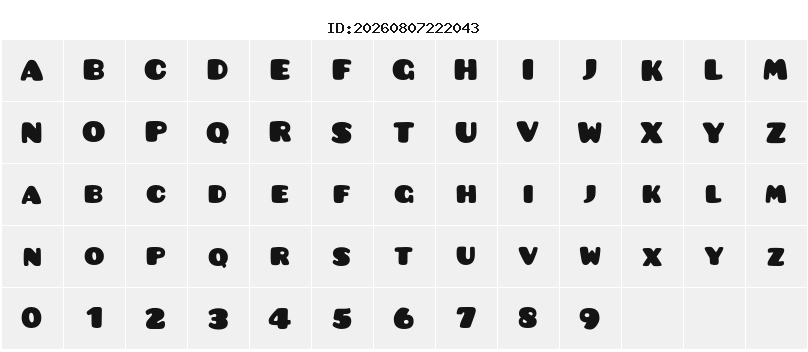
Pusab Preview
• Font Name: Pusab
• Font ID: 1.000;PYRS;Pusab
• Full Font Name: Pusab
• Version: Version 1.000;PS 001.000;hotconv 1.0.38
• PostScript Name: Pusab
• Designer: Ryoichi Tsunekawa
• Manufacturer: Ryoichi Tsunekawa
About Pusab.otf
Pusab.otf is a modern, elegant sans-serif font designed for ultimate readability and visual harmony. Perfect for branding, headlines, web design, and print materials.